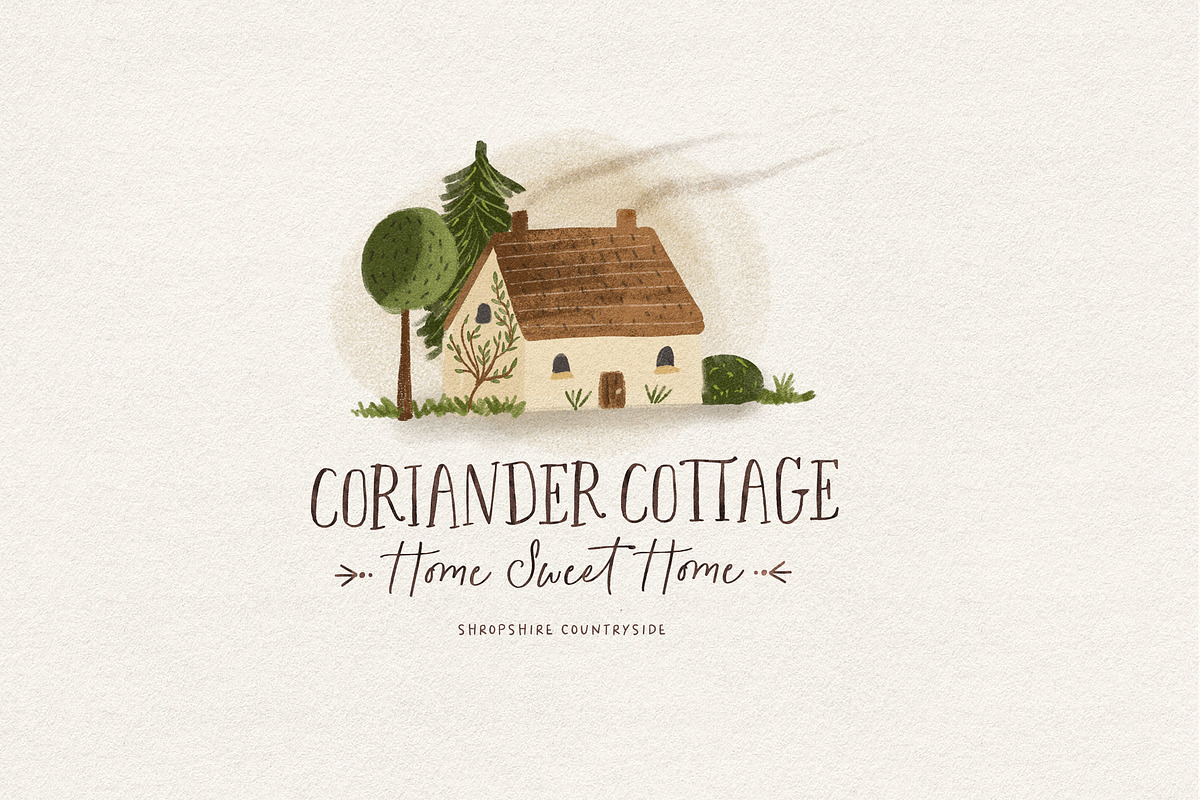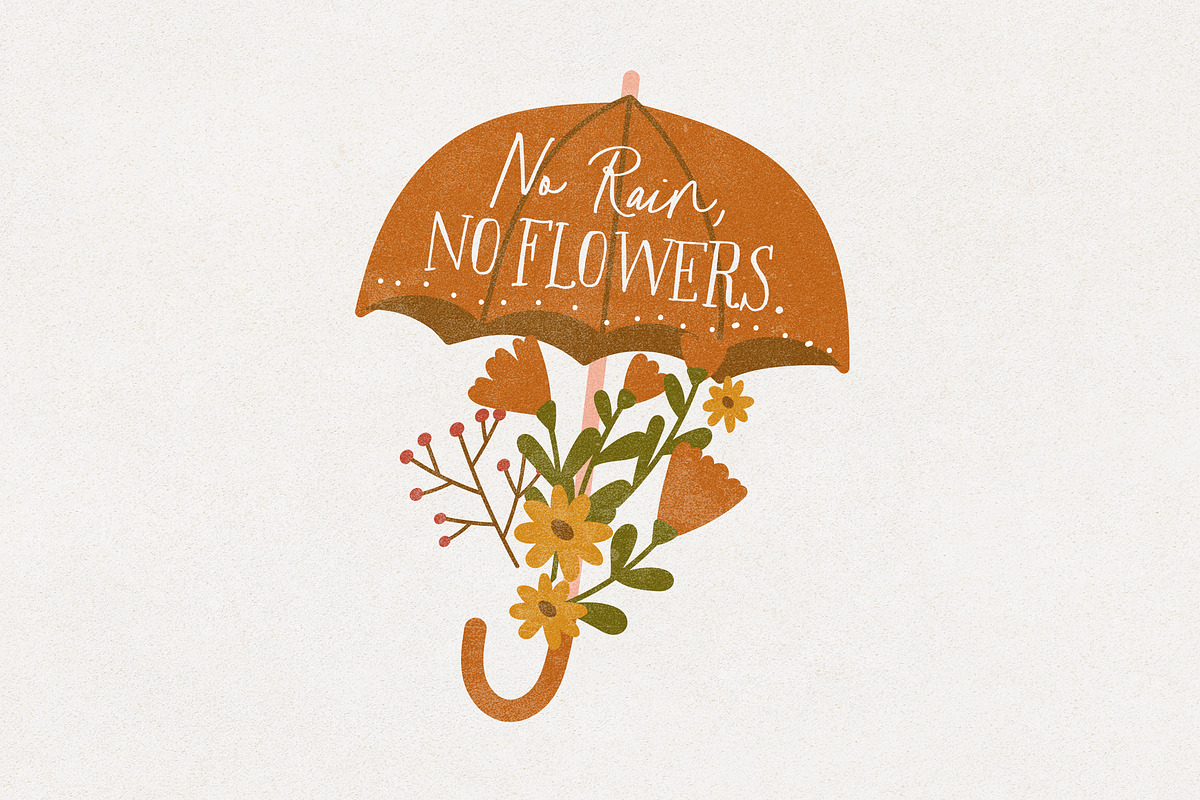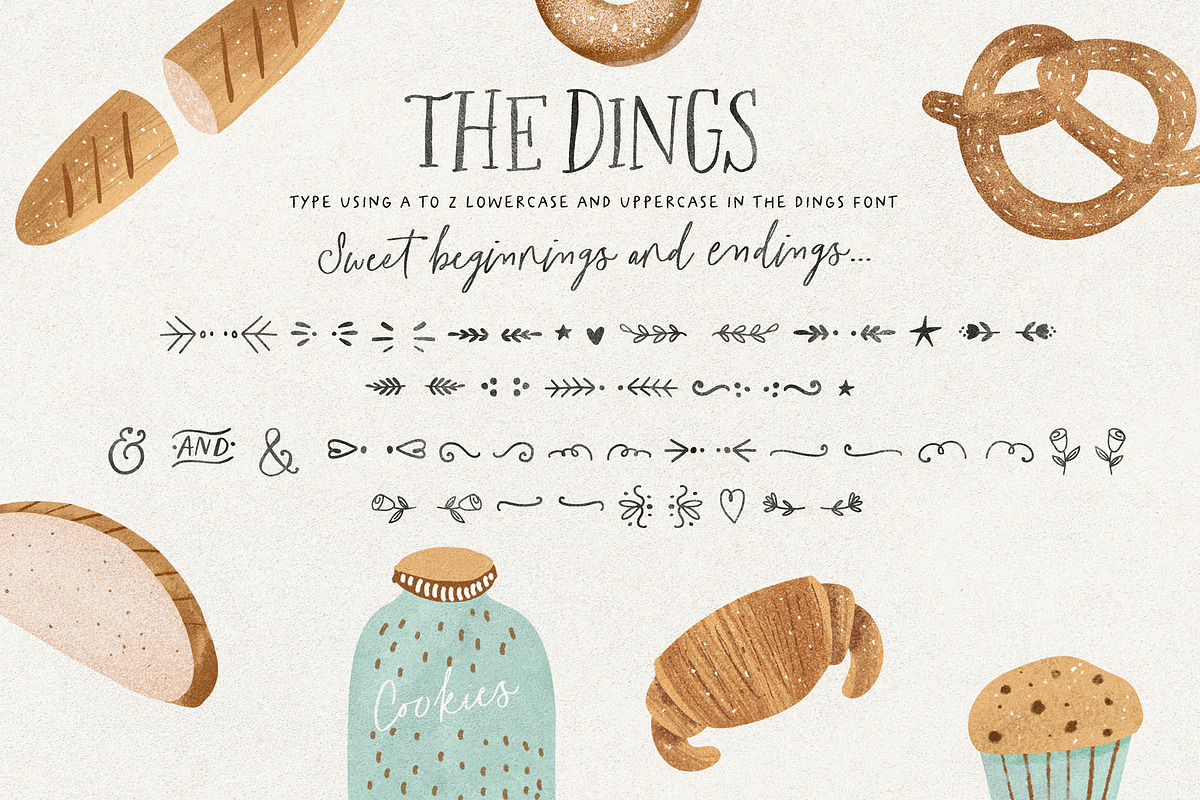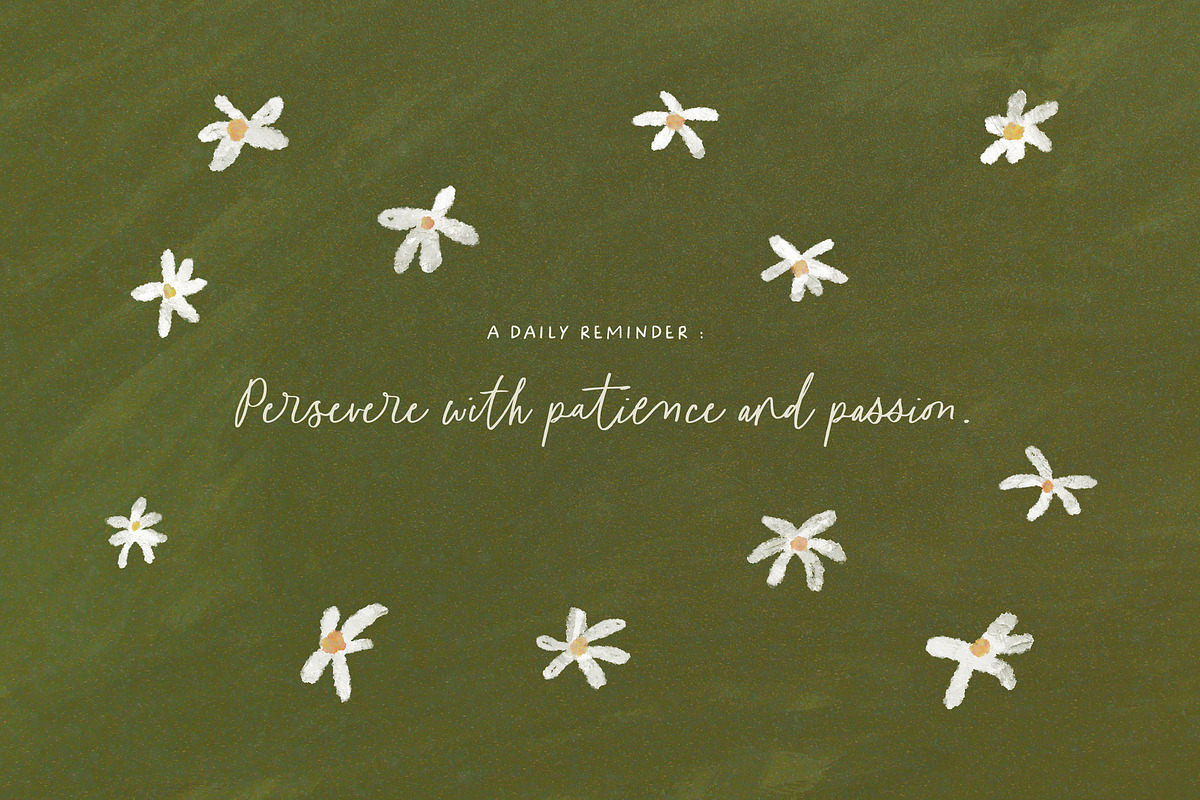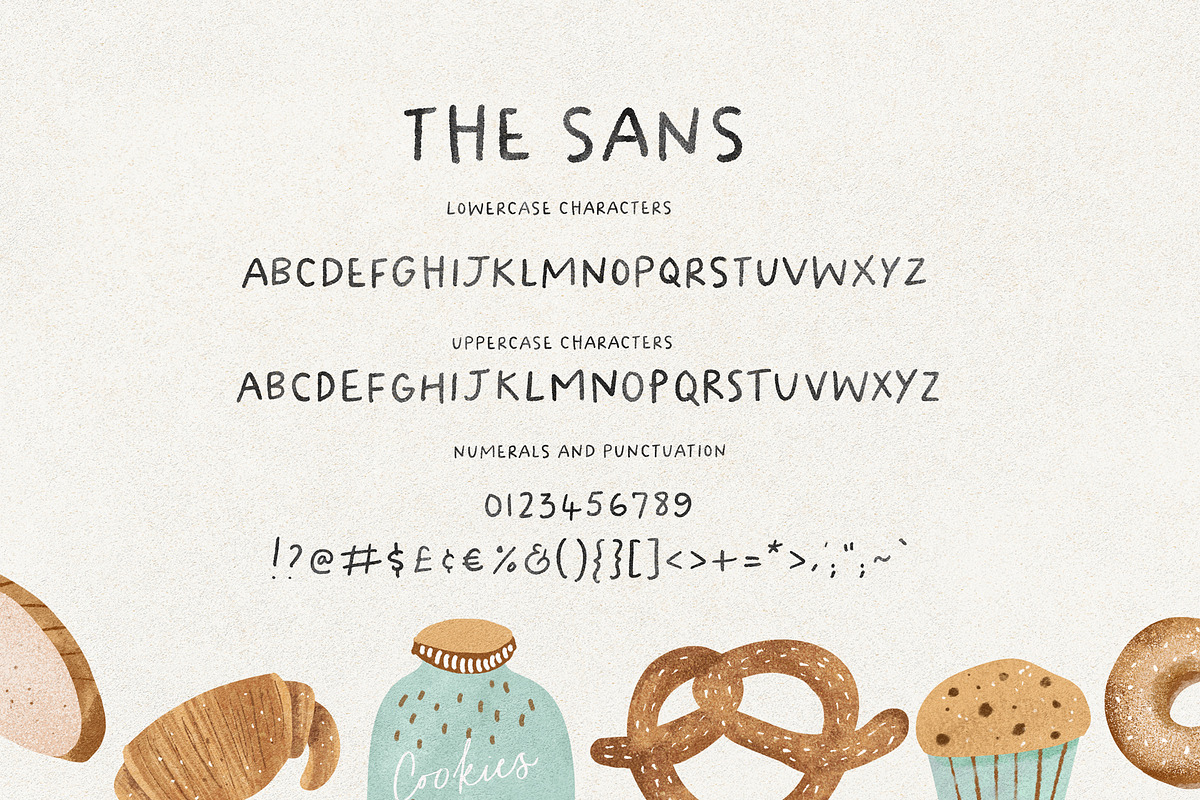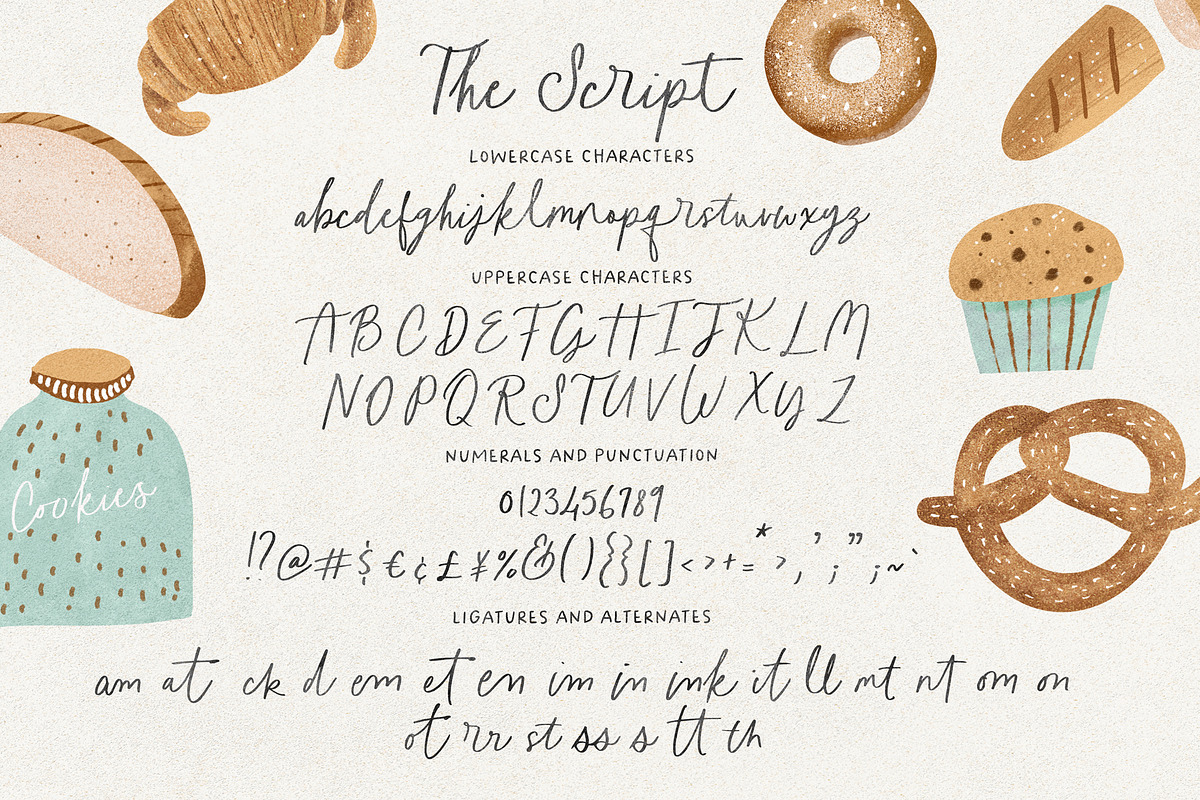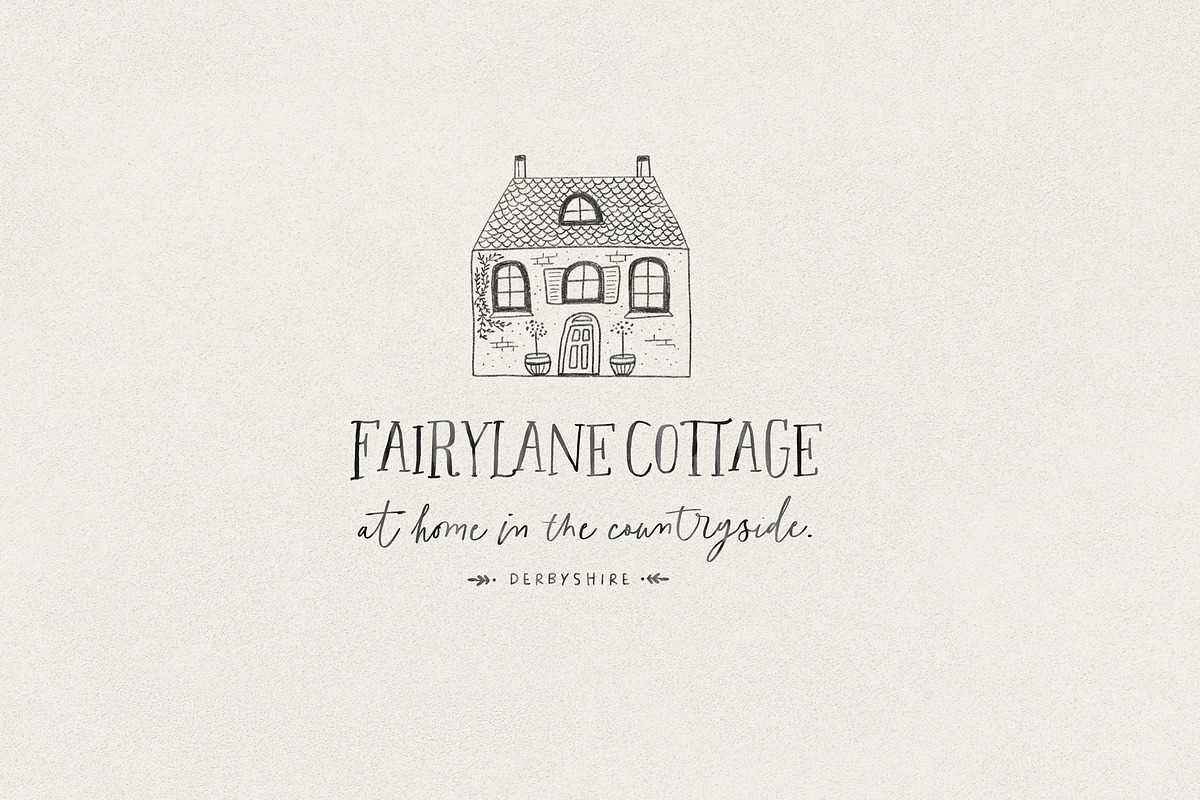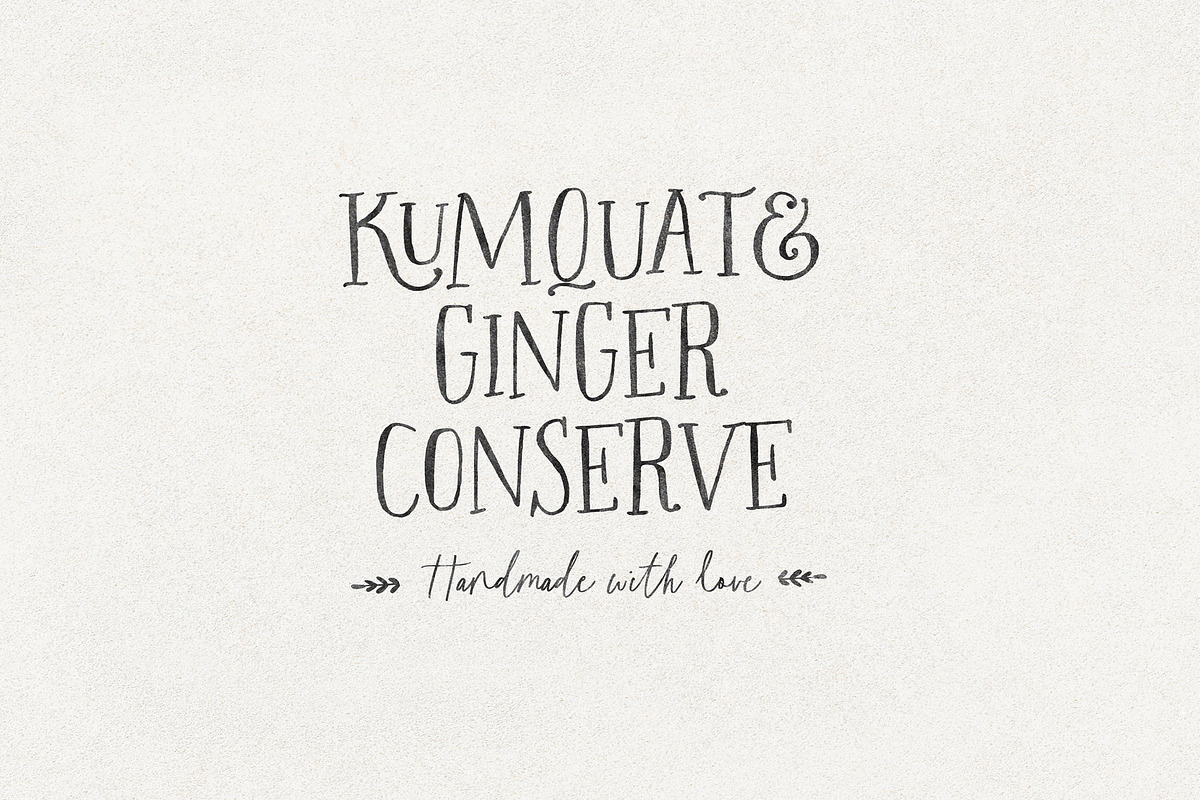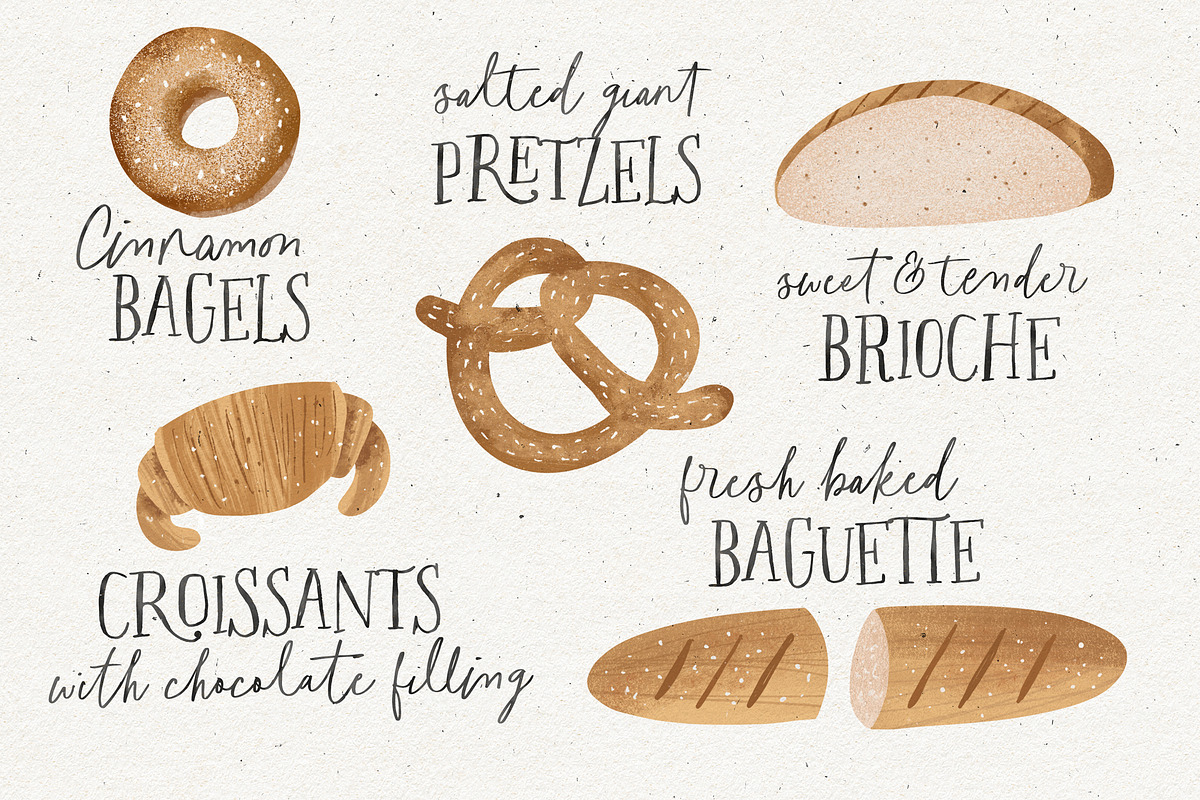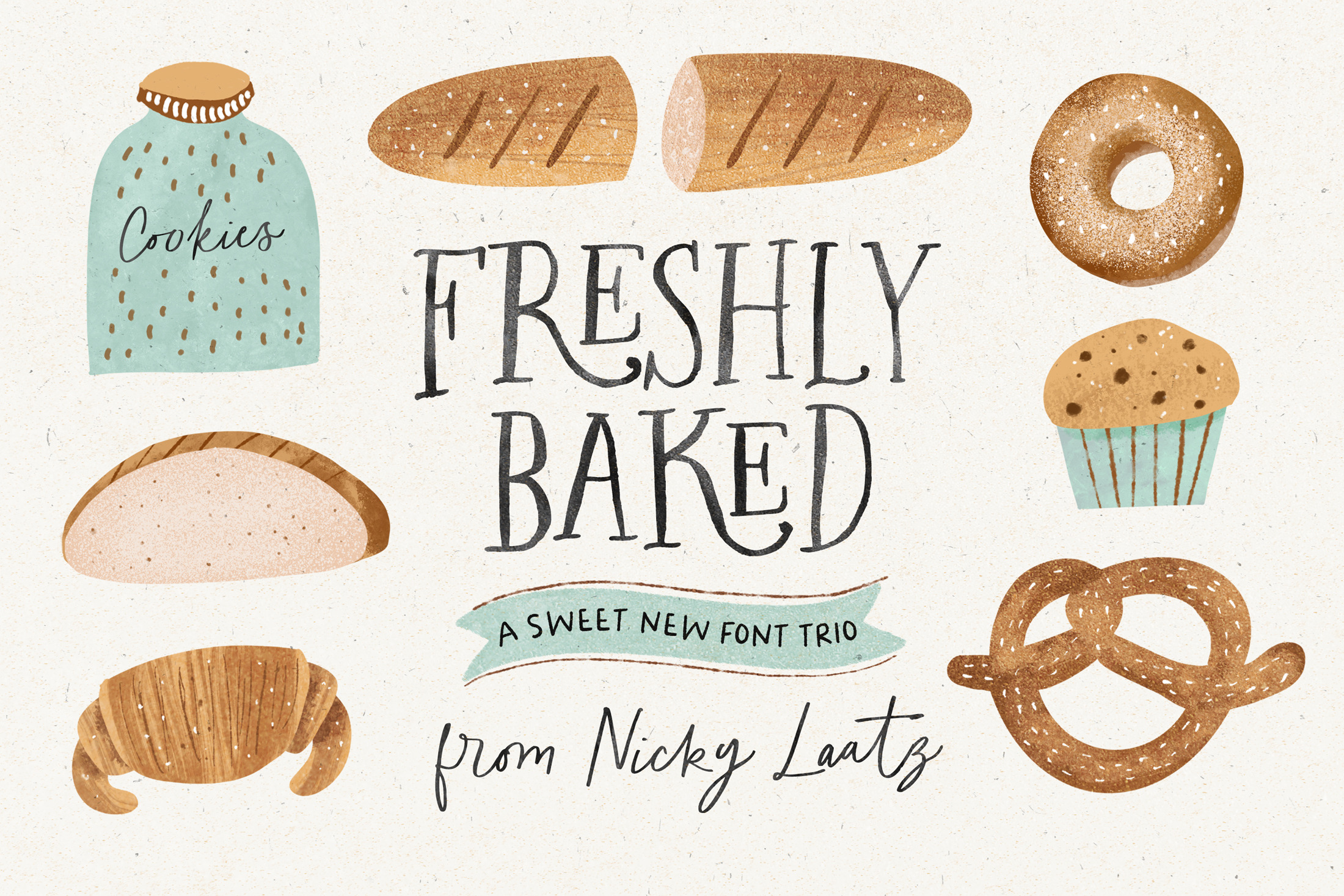
The Freshly Baked Font Trio & Dings
Say hello to the Freshly Baked Font Trio! 3 Delightfully handwritten fonts, with a sweet little dingbat ornament font too :)
The Serif and the Script have a wonderful selection of Opentype Ligatures - make sure you have your ligatures switched on as you type if you would like to see them :)
Quaint and quirky, the Freshly Baked Font trio is perfect for Greetings, Adding to Illustrations, Children's Books, delightful packaging, labels, logos and so much more :)
- Freshly Baked Serif
- Freshly Baked Serif Slanted
- Freshly Baked Sans
- Freshly Baked Sans Slanted
- Freshly Baked Script
- Freshly Baked Dings
What are Opentype Ligatures? They are the fancy 'double or triple letters' specially designed to fit with each other in a pretty way. For example, the 'Ro' in the Serif font has the 'R' wrapping under the 'o' slightly in it's ligature.